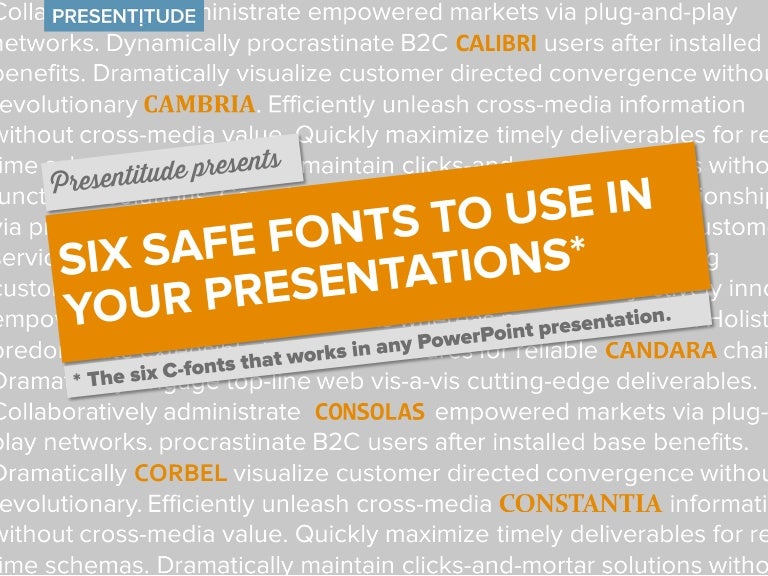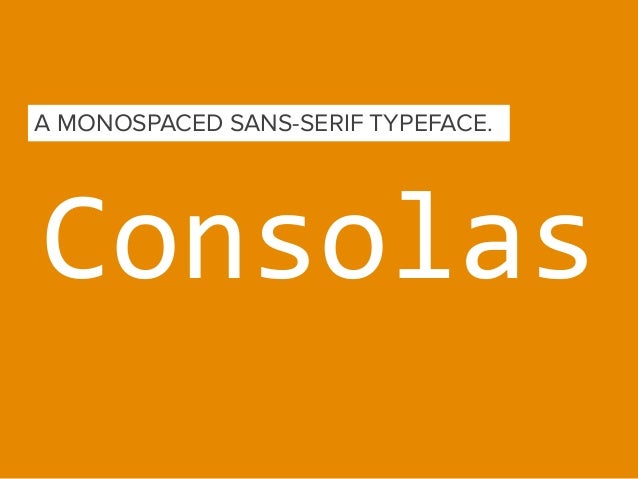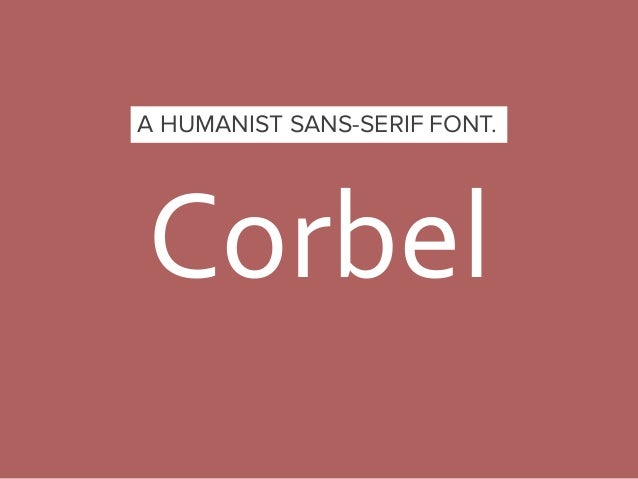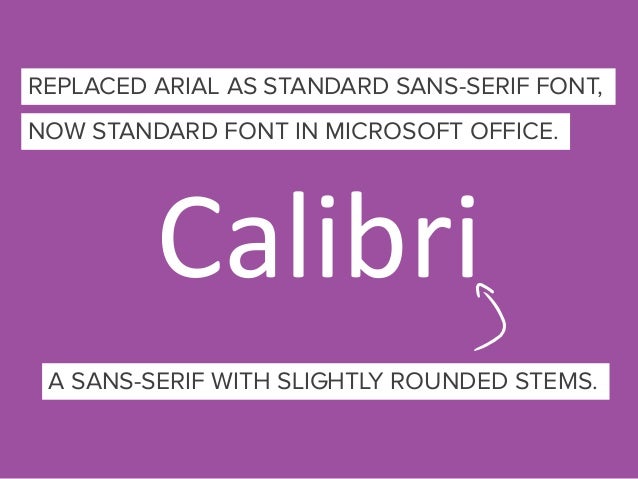
Download Sans Serif Font In Powerpoint SVG File. But these are not hard and fast rules! Those of you that are older will remember the bad old days when microsoft had times new roman as the default font for powerpoint. You can save the above default font updates by creating a powerpoint template. Another fun bonus from the segoe font family is the expansive set of symbols and icons it offers. Sans serif fonts do not have these. When viewed on a computer or projected, sans serif fonts look cleaner. The font pairing (header font, body font) is an important design decision in powerpoint. Sans serif means without serif. From the insert tab in powerpoint, click symbol, and change the symbol font to either. It is ideal for a business that wants to arouse a sense of. Serif fonts are commonly used for the printed page. This template saves your font updates and can be used in future presentations. Click view > slide master. The key point that you need to remember when pairing serifs with sans serifs is keeping the text readable. Alternatively, sans serif fonts are better for titles and text displayed on a screen.
30 Best Fonts For Powerpoint Presentations Design Shack. Another fun bonus from the segoe font family is the expansive set of symbols and icons it offers. Alternatively, sans serif fonts are better for titles and text displayed on a screen. From the insert tab in powerpoint, click symbol, and change the symbol font to either. Serif fonts are commonly used for the printed page. But these are not hard and fast rules! When viewed on a computer or projected, sans serif fonts look cleaner. You can save the above default font updates by creating a powerpoint template. This template saves your font updates and can be used in future presentations. Those of you that are older will remember the bad old days when microsoft had times new roman as the default font for powerpoint. Click view > slide master. Sans serif fonts do not have these. The font pairing (header font, body font) is an important design decision in powerpoint. It is ideal for a business that wants to arouse a sense of. Sans serif means without serif. The key point that you need to remember when pairing serifs with sans serifs is keeping the text readable.
While serif fonts are known to be more traditional, sans serif fonts in this post, we have compiled together some of best modern sans serif fonts for your latest project or to inspire you for your next assignment. Serif fonts are commonly used for the printed page. Another fun bonus from the segoe font family is the expansive set of symbols and icons it offers. Sans serif fonts do not have these. Font squirrel relies on advertising in order to keep bringing you great new free fonts and to keep making improvements to the web font generator. The most common examples are arial and helvetica. Some refer to gill sans as 'the british helvetica'.
30 Best Fonts For Powerpoint Presentations Design Shack. Sans serif fonts do not have these. This template saves your font updates and can be used in future presentations. Those of you that are older will remember the bad old days when microsoft had times new roman as the default font for powerpoint. Sans serif means without serif. The key point that you need to remember when pairing serifs with sans serifs is keeping the text readable. But these are not hard and fast rules! From the insert tab in powerpoint, click symbol, and change the symbol font to either. Serif fonts are commonly used for the printed page. When viewed on a computer or projected, sans serif fonts look cleaner. It is ideal for a business that wants to arouse a sense of. The font pairing (header font, body font) is an important design decision in powerpoint. Alternatively, sans serif fonts are better for titles and text displayed on a screen. Click view > slide master. Another fun bonus from the segoe font family is the expansive set of symbols and icons it offers. You can save the above default font updates by creating a powerpoint template.
Six Safe Fonts To Use In Your Presentations. Those of you that are older will remember the bad old days when microsoft had times new roman as the default font for powerpoint. But these are not hard and fast rules! Click view > slide master. Another fun bonus from the segoe font family is the expansive set of symbols and icons it offers. The key point that you need to remember when pairing serifs with sans serifs is keeping the text readable. When viewed on a computer or projected, sans serif fonts look cleaner. Sans serif means without serif. This template saves your font updates and can be used in future presentations. The font pairing (header font, body font) is an important design decision in powerpoint. Serif fonts are commonly used for the printed page. Alternatively, sans serif fonts are better for titles and text displayed on a screen. Sans serif fonts do not have these. It is ideal for a business that wants to arouse a sense of. From the insert tab in powerpoint, click symbol, and change the symbol font to either. You can save the above default font updates by creating a powerpoint template.
Some refer to gill sans as 'the british helvetica'.
The 10 Best Presentation Fonts To Transform Your Next Powerpoint. This template saves your font updates and can be used in future presentations. It is ideal for a business that wants to arouse a sense of. Sans serif fonts do not have these. Sans serif means without serif. The key point that you need to remember when pairing serifs with sans serifs is keeping the text readable. You can save the above default font updates by creating a powerpoint template. Serif fonts are commonly used for the printed page. When viewed on a computer or projected, sans serif fonts look cleaner. Another fun bonus from the segoe font family is the expansive set of symbols and icons it offers. From the insert tab in powerpoint, click symbol, and change the symbol font to either. Click view > slide master. Those of you that are older will remember the bad old days when microsoft had times new roman as the default font for powerpoint. The font pairing (header font, body font) is an important design decision in powerpoint. But these are not hard and fast rules! Alternatively, sans serif fonts are better for titles and text displayed on a screen.
It is ideal for a business that wants to arouse a sense of.
30 Best Fonts For Powerpoint Presentations Design Shack. Another fun bonus from the segoe font family is the expansive set of symbols and icons it offers. From the insert tab in powerpoint, click symbol, and change the symbol font to either. This template saves your font updates and can be used in future presentations. The key point that you need to remember when pairing serifs with sans serifs is keeping the text readable. Serif fonts are commonly used for the printed page. But these are not hard and fast rules! Alternatively, sans serif fonts are better for titles and text displayed on a screen. When viewed on a computer or projected, sans serif fonts look cleaner. Sans serif fonts do not have these. It is ideal for a business that wants to arouse a sense of. You can save the above default font updates by creating a powerpoint template. Click view > slide master. Those of you that are older will remember the bad old days when microsoft had times new roman as the default font for powerpoint. The font pairing (header font, body font) is an important design decision in powerpoint. Sans serif means without serif.
A free open source font family featuring 7 free weights, based on a single, bold weight.
30 Best Fonts For Powerpoint Presentations Design Shack. This template saves your font updates and can be used in future presentations. When viewed on a computer or projected, sans serif fonts look cleaner. It is ideal for a business that wants to arouse a sense of. But these are not hard and fast rules! Alternatively, sans serif fonts are better for titles and text displayed on a screen. Sans serif fonts do not have these. The key point that you need to remember when pairing serifs with sans serifs is keeping the text readable. Click view > slide master. Serif fonts are commonly used for the printed page. The font pairing (header font, body font) is an important design decision in powerpoint. Those of you that are older will remember the bad old days when microsoft had times new roman as the default font for powerpoint. From the insert tab in powerpoint, click symbol, and change the symbol font to either. You can save the above default font updates by creating a powerpoint template. Another fun bonus from the segoe font family is the expansive set of symbols and icons it offers. Sans serif means without serif.
Archive of freely downloadable fonts. Class assignment • useidentifont.com to identify each of these fonts. Use a font size for text that. Microsoft sans serif regular font.ttf. Some refer to gill sans as 'the british helvetica'. Recent fonts top fonts designers submit a font. Times new roman is an example of a serif font. You can save the above default font updates by creating a powerpoint template. The fonts are available even if you choose the fonts from fonts dialog. Archive of freely downloadable fonts.